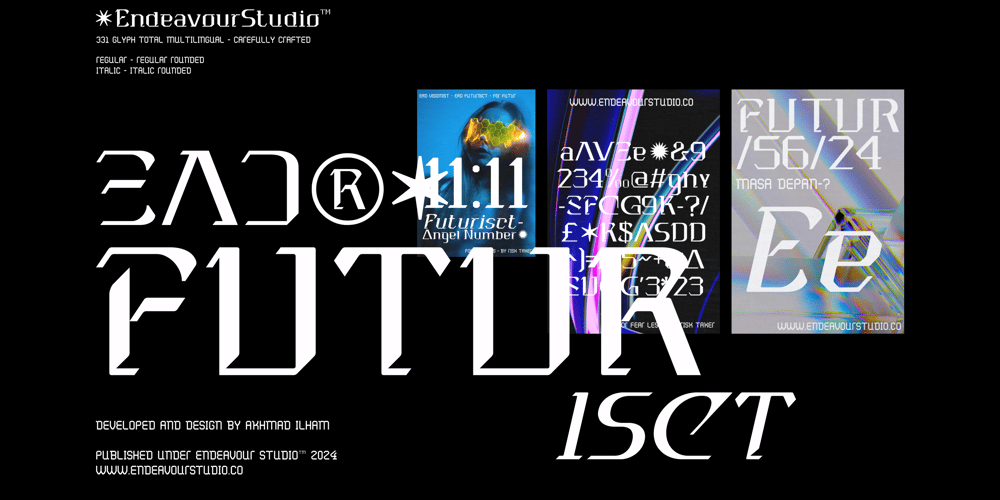
EAD Futurisct Font Family was designed by Akhmad Ilham and published by Endeavour Studio. EAD Futurisct contains 4 styles and family package options. EAD®✶ Futurisct is our experimental typeface, exploring how we can harmonize inconsistency to achieve balance through asymmetrical design, contrast, and shape. Inspired by bold futuristic aesthetics, Futurisct aims to strike a balance between exploration and consistency, even with sharp edges. Once we’ve achieved the sharp version, we deliberately introduce inconsistency by rounding the corners, creating a more fluid yet still sharp iteration of EAD®✶ Futurisct.Specification Contain 331 Glyph Multilingual 4 Styles Regular – Regular Rounded Italic – Italic Rounded ✶ Support for 68 languages detected